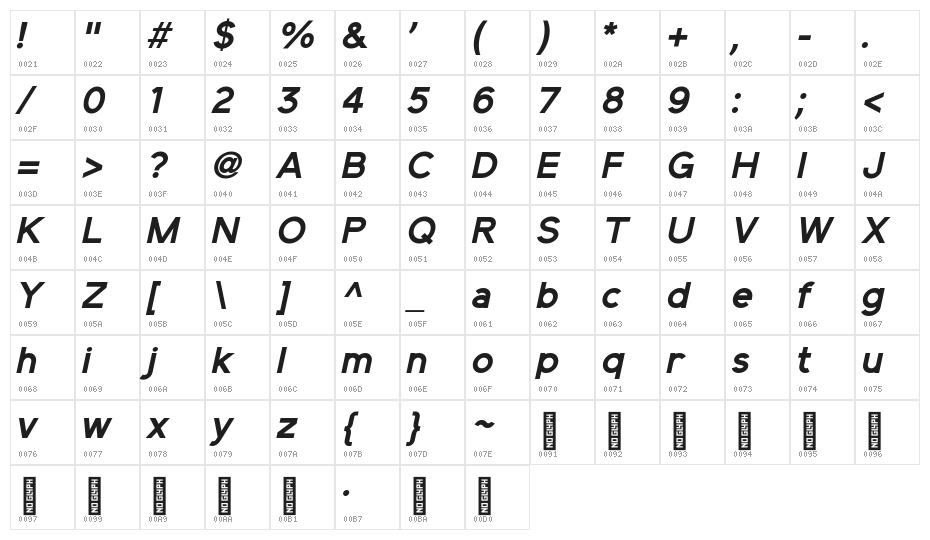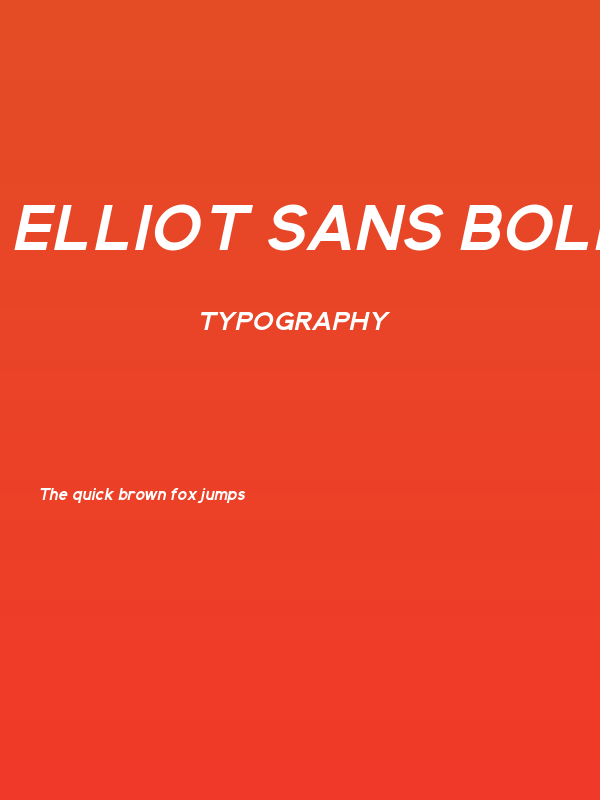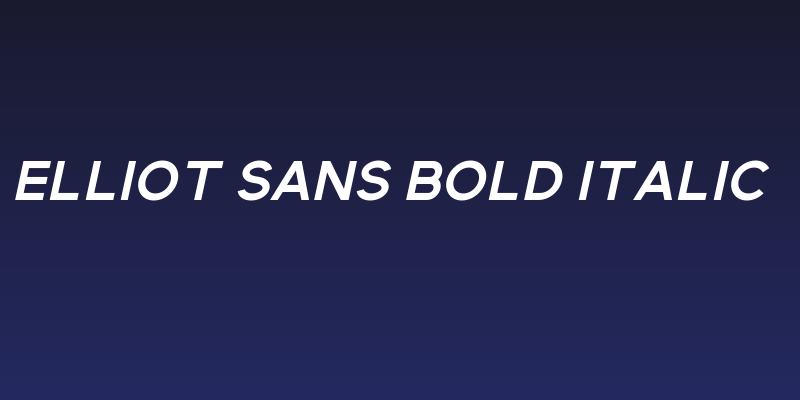
Elliot Sans Bold Italic Font
Elliot Sans Bold Italic Description
This font exhibits a modern and sleek sans-serif style with a bold and italicized appearance. The characters are clean and well-defined, featuring a slight slant that adds a dynamic and forward-moving feel. The bold weight ensures strong visibility and impact, making it suitable for attention-grabbing headlines. The character spacing is normal, providing a balanced and readable text flow. The numbers and special characters maintain the same bold and italic characteristics, ensuring consistency across all glyphs.
| Proposed Projects | Ideal for branding, advertising, and editorial design projects where a modern and impactful look is desired. |